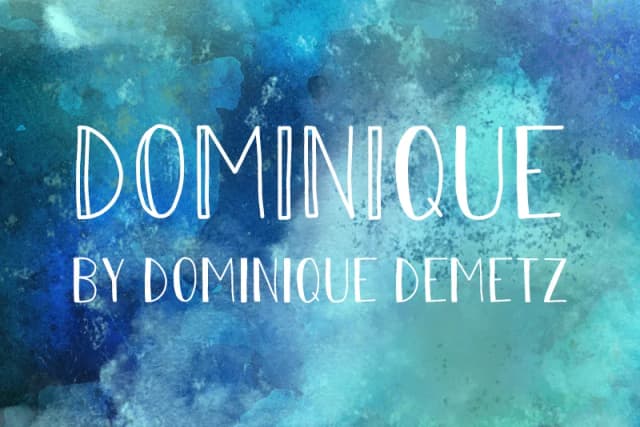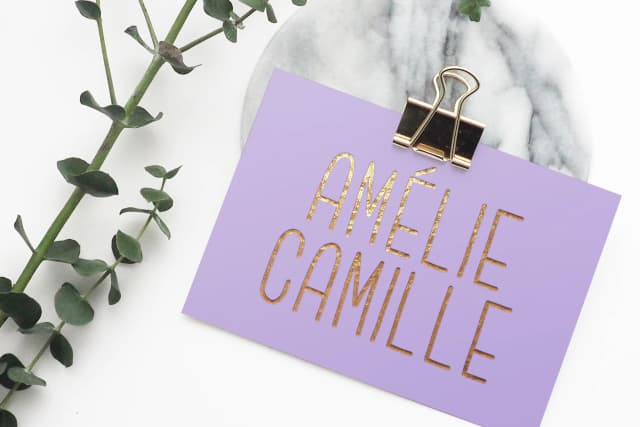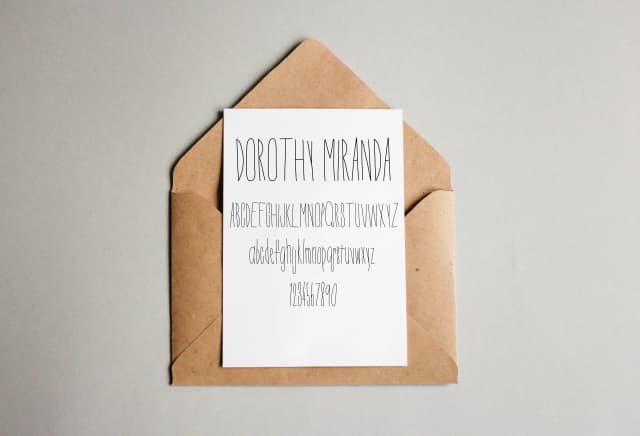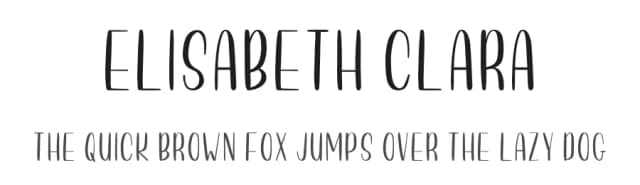
About Dominique Font
Dominique is a script & handwritten font designed by Dominique Demetz. It includes 168 glyphs, a regular weight, OTF (CFF) format, and 196 languages. Dominique is free to download; check the license details on this page before commercial use. Script & handwritten fonts like Dominique work best for wedding invitations, greeting cards, signatures, and elegant branding.
Dominique Font is a script font that shines as a display or heading face. Pair it with a clean sans-serif or serif font for body text β the contrast creates a clear hierarchy while the two styles stay balanced and easy to read.